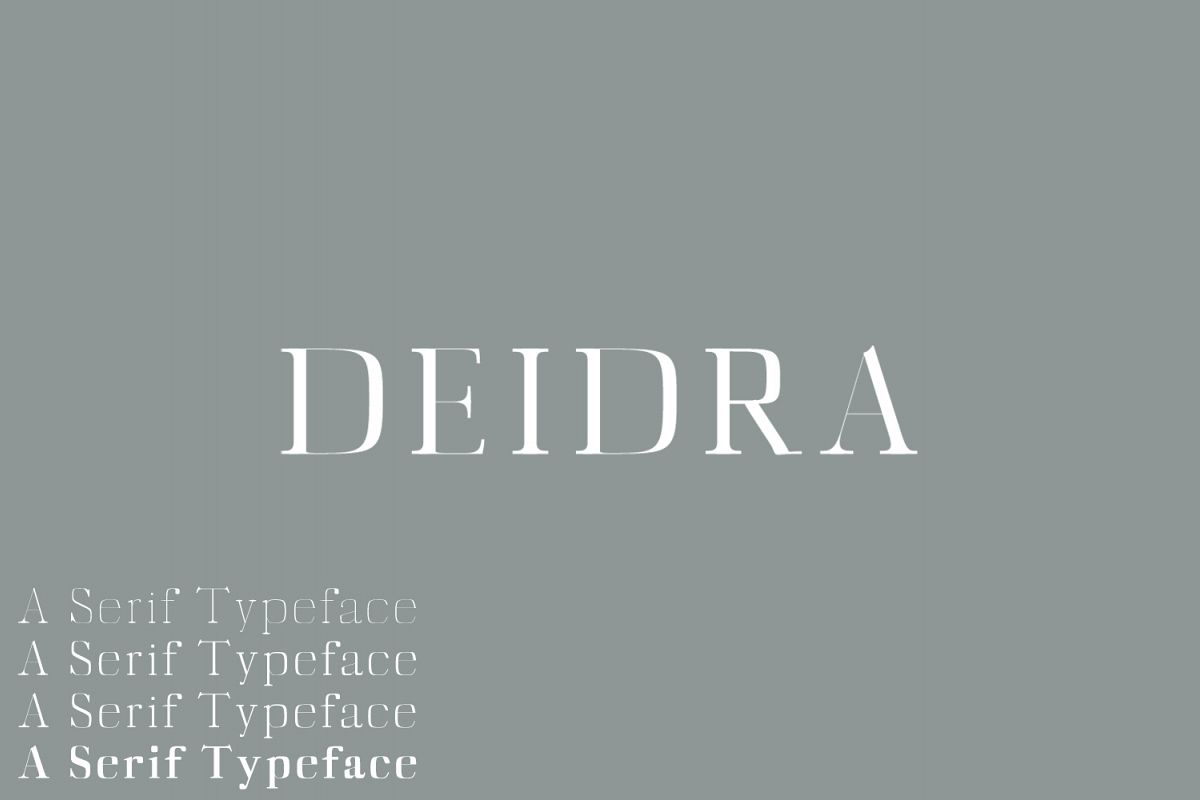
Deidra Serif Typeface
Diedra Serif Typeface is a minimal clean serif font family, which contains 4 weights and It features unique and modern serif look and feel. Perfect for gorgeous logos, titles, web layouts and branding. It looks gorgeous in all caps with a wide-set spacing if you want to try a classy look, or beautiful on its own in capital and lowercase letters for something completely timeless.
• Font Weight: Regular, Thin, Light and Bold
Diedra Font Features:
• Uppercase Multilingual Letters
• Lowercase Multilingual Letters
• Alternative